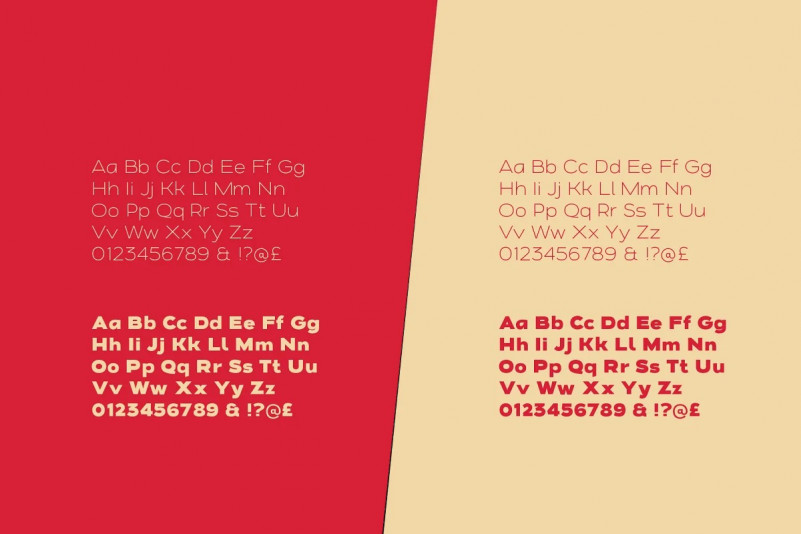
Kin Grotesque Font
Kin Grotesque Sans Serif Font is a sans serif modern classic grotesque font family by We Are Colt
Kin Grotesque has been created to be your new go-to grotesque font that will work well for body copy and headlines.
With nine standard weights, this font will fit a myriad of uses such as; editorial headings, body text and logo design.